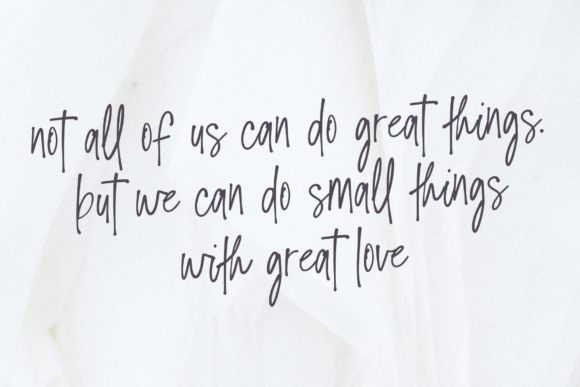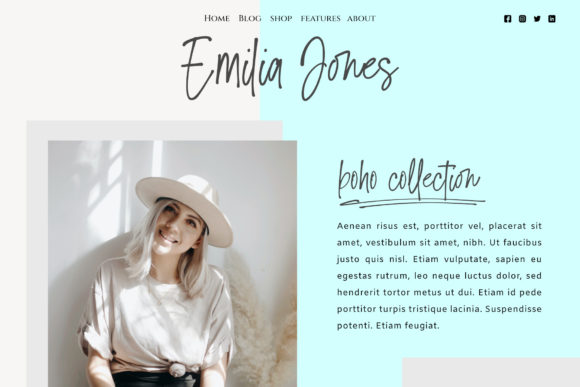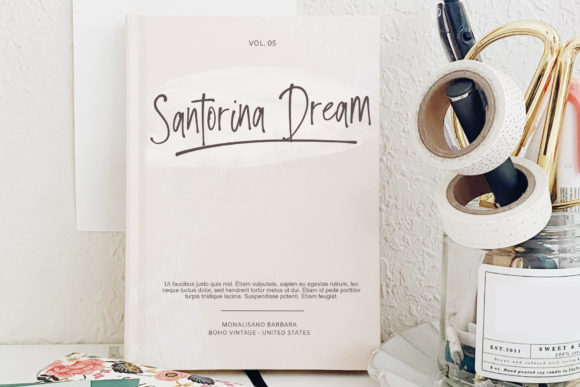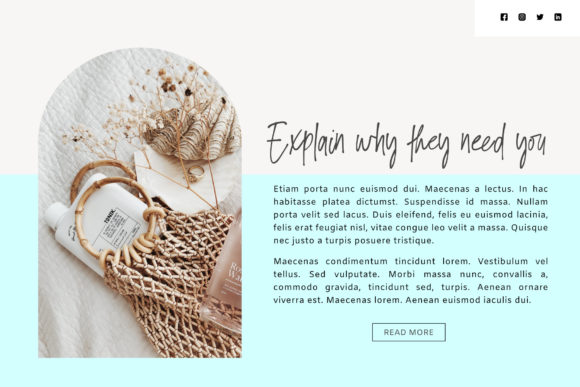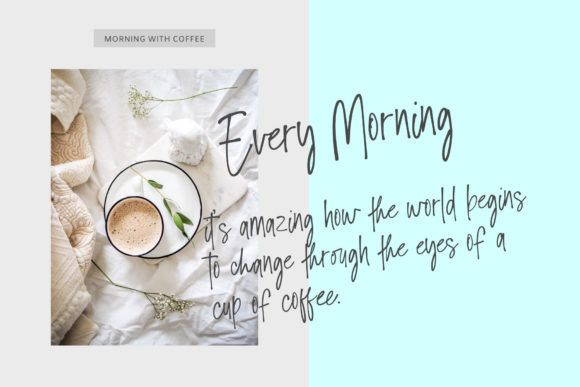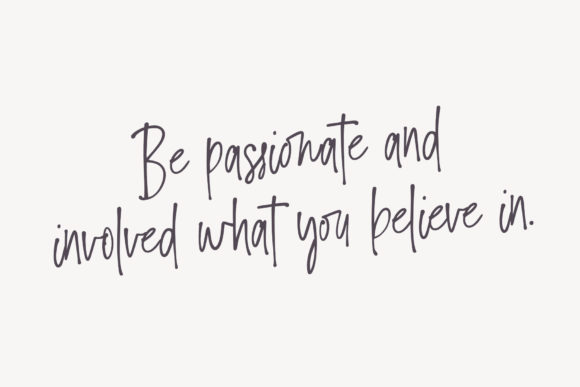
Dandelions Font: The Whimsical Handwritten Font for Delicate and Sweet Designs
Are you a designer or crafter looking for a font that can add a touch of whimsy and sweetness to your projects? Look no further than Dandelions Font! This beautiful handwritten font is perfect for creating delicate and charming designs that are sure to capture the hearts of your audience. In this article, we’ll take a closer look at Dandelions Font, its features, and how you can use it to elevate your designs.
What is Dandelions Font?
Dandelions Font is a whimsical handwritten font that gives off delicate and sweet vibes. Its unique and authentic design makes it a perfect fit for a variety of projects, including wedding invitations, birthday cards, thank you notes, and more. The font’s soft and gentle appearance is sure to add a touch of warmth and personality to your designs.
Features of Dandelions Font
So, what makes Dandelions Font so special? Here are some of its key features:
- Whimsical design: Dandelions Font has a playful and whimsical design that is sure to add a touch of magic to your projects.
- Handwritten style: The font’s handwritten style gives it a personal and authentic feel that’s perfect for creating unique and charming designs.
- Delicate and sweet: Dandelions Font has a delicate and sweet appearance that’s sure to capture the hearts of your audience.
- Versatile: The font is versatile and can be used for a variety of projects, including wedding invitations, birthday cards, thank you notes, and more.
Uses of Dandelions Font
Dandelions Font is a versatile font that can be used for a variety of projects. Here are some ideas to get you started:
- Wedding invitations: Dandelions Font is a perfect fit for wedding invitations, adding a touch of romance and whimsy to your designs.
- Birthday cards: The font’s playful and whimsical design makes it a great choice for birthday cards and other celebrations.
- Thank you notes: Dandelions Font is also a great choice for thank you notes and other personal correspondence.
- DIY projects: The font’s unique and authentic design makes it a great choice for DIY projects, such as scrapbooking, journaling, and more.
Tips for Using Dandelions Font
Here are some tips for using Dandelions Font in your designs:
- Pair with other fonts: Dandelions Font pairs well with other fonts, such as serif and sans-serif fonts. Experiment with different combinations to find the perfect look for your project.
- Use for headings and titles: The font’s whimsical design makes it a great choice for headings and titles. Use it to add a touch of personality to your designs.
- Experiment with colors: Dandelions Font looks great in a variety of colors. Experiment with different colors to find the perfect look for your project.
| Font Name | Dandelions Font |
| Author | jimtypestudio |
Dandelions Font is a beautiful and versatile font that’s perfect for designers and crafters looking to add a touch of whimsy and sweetness to their projects. Its unique and authentic design makes it a great choice for a variety of projects, including wedding invitations, birthday cards, thank you notes, and more. With its delicate and sweet appearance, Dandelions Font is sure to capture the hearts of your audience. So why not give it a try and see how it can elevate your designs?